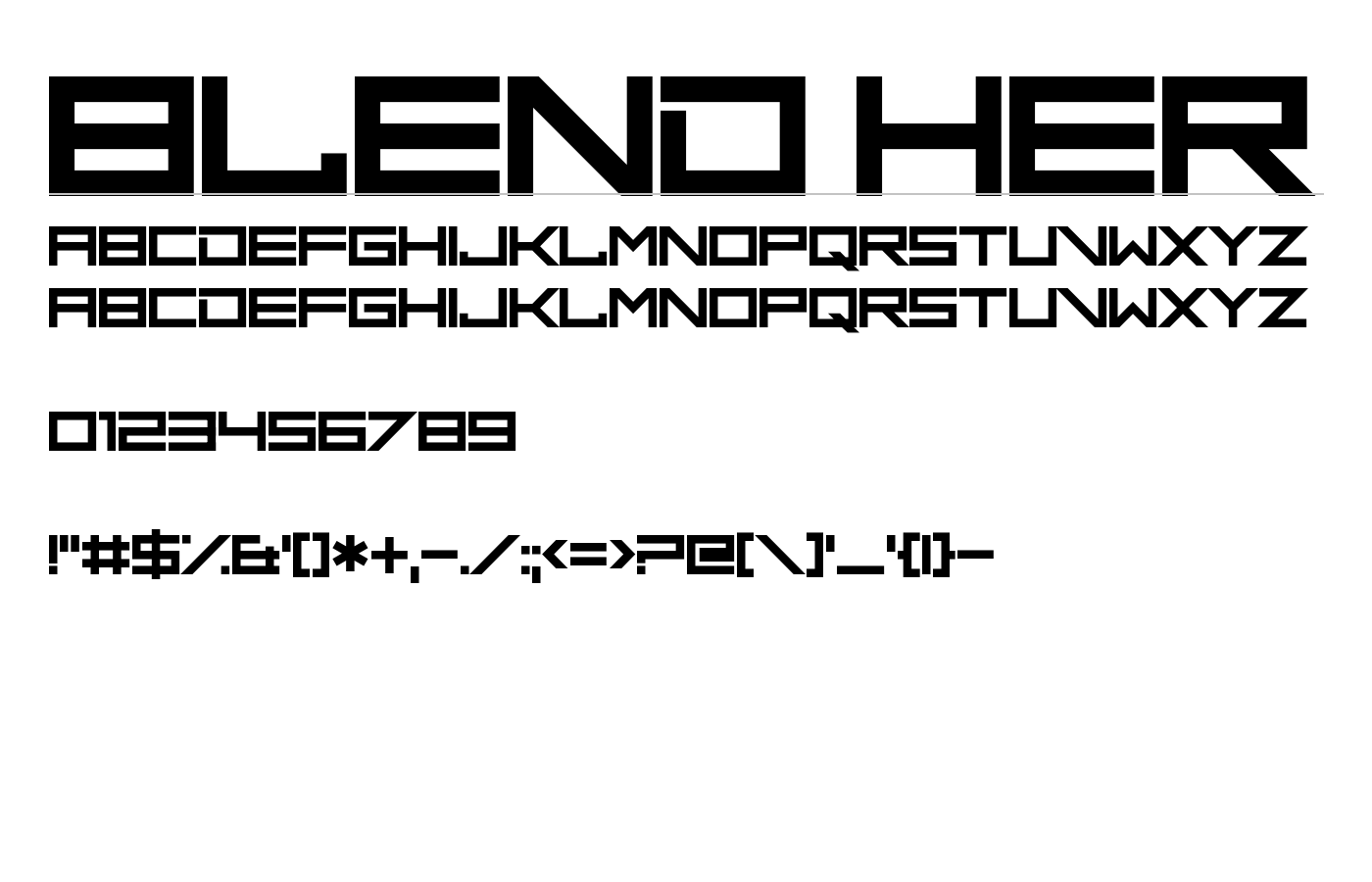
Blend Her Font is a bold, geometric sans serif with a futuristic and technical vibe. Its strong, angular letterforms and tight spacing convey a modern, edgy personality that suits technology, sports, or sci-fi branding. This font works best in striking headlines, logos, and digital projects where a sharp, attention-grabbing presence is key.
Blend Her Font
About Blend Her Font
| Font family | Blend Her Font |
| Designer | NAL |